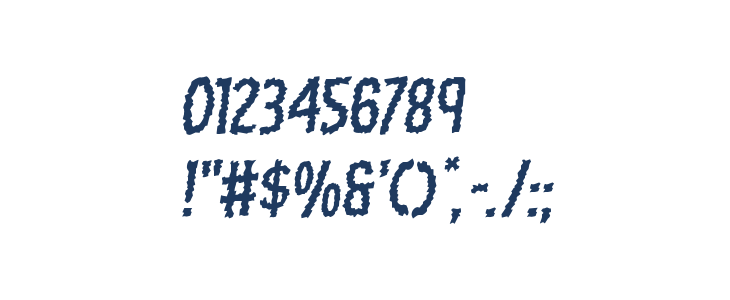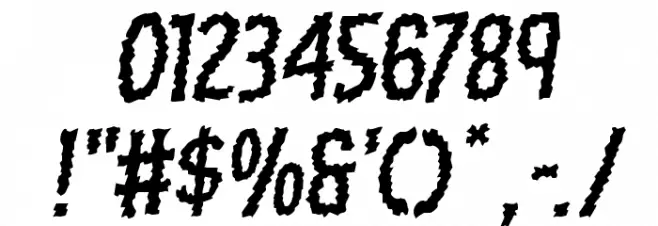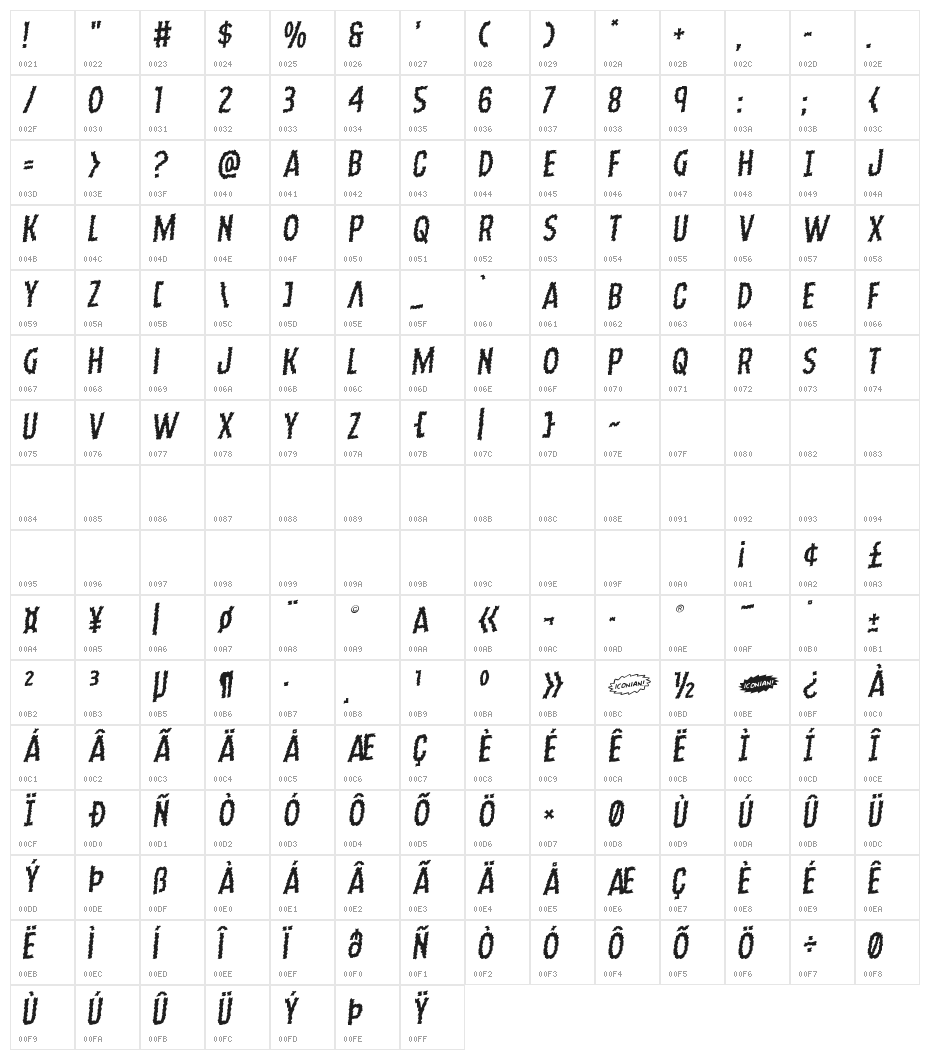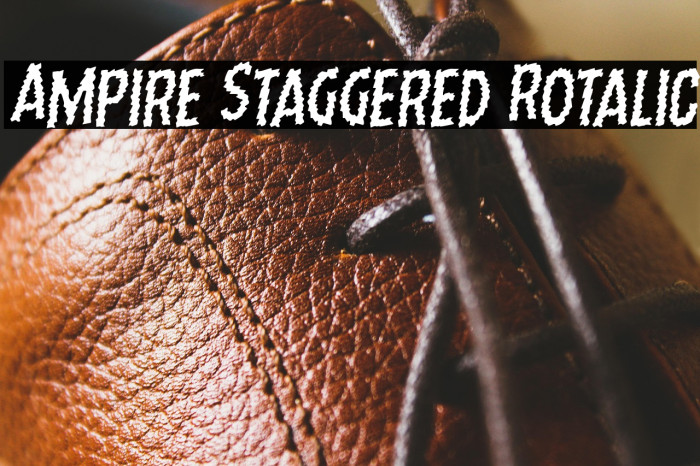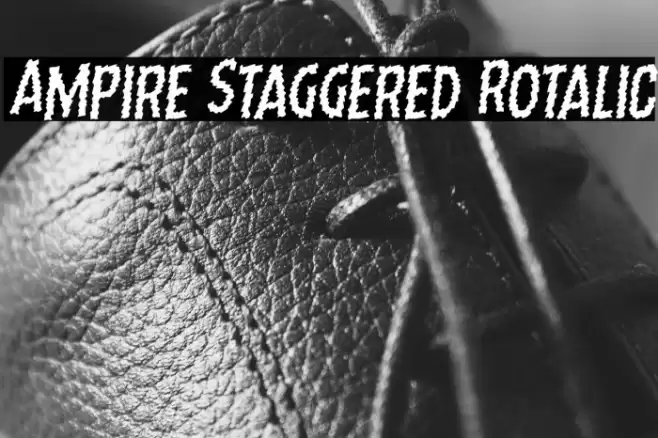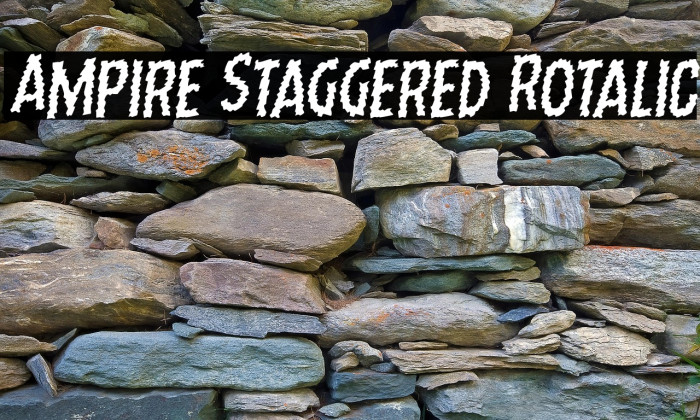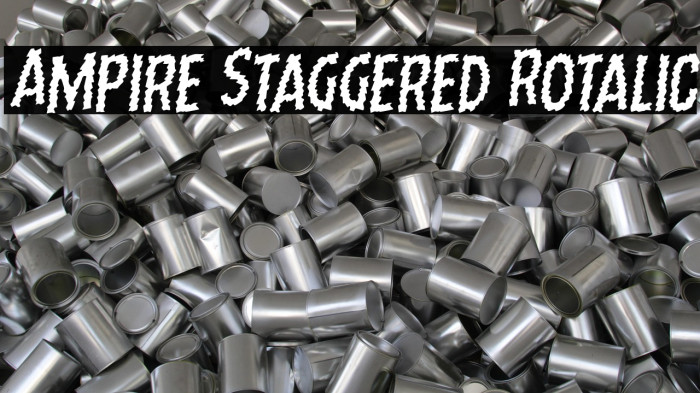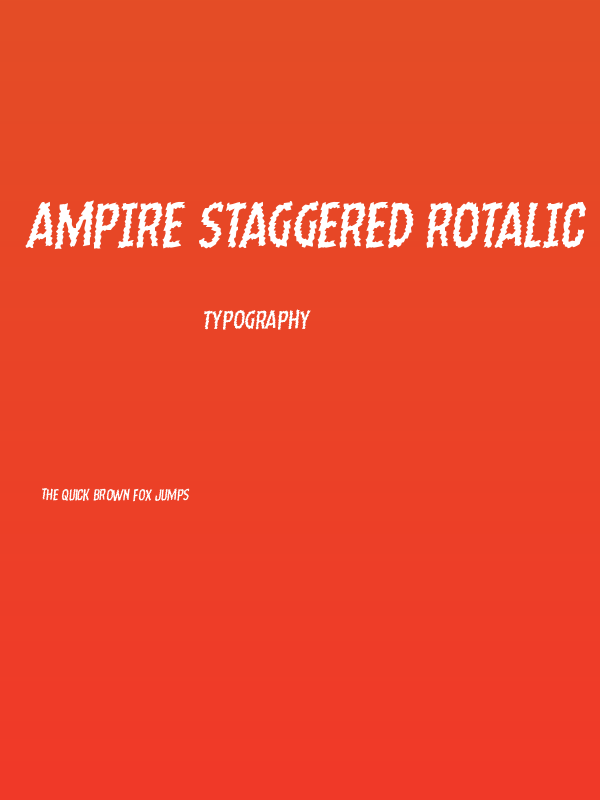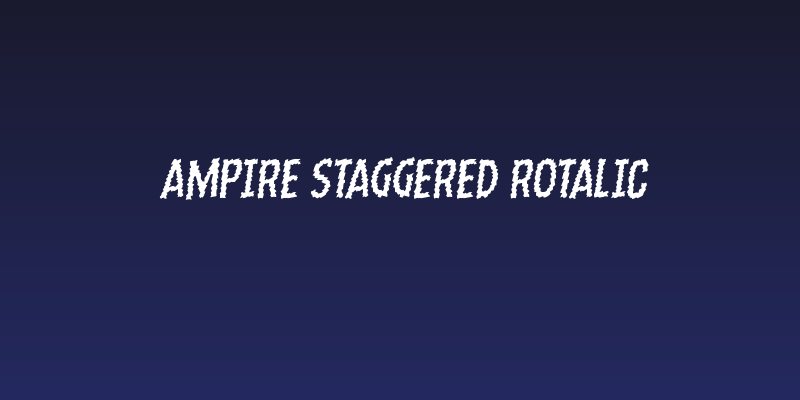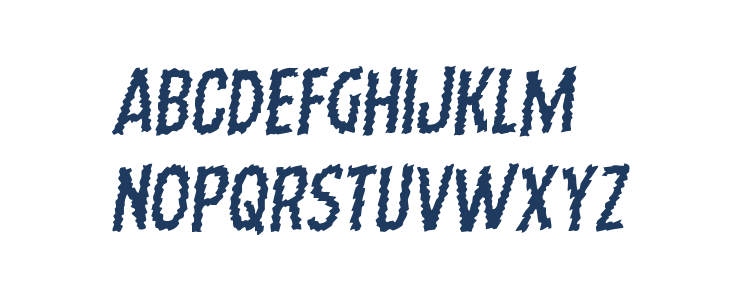
Ampire Staggered Rotalic Font
Ampire Staggered Rotalic Description
This font features a dynamic, staggered appearance with a bold, jagged edge that gives it a sense of movement and energy. The characters are slightly slanted, enhancing the impression of speed and urgency. Each letter is crafted with a rough, textured outline that adds a gritty, rebellious feel. The uppercase and lowercase letters maintain a consistent style, while the numerals and special characters complement the overall aesthetic. This font is ideal for projects that require a bold statement or an edgy, unconventional look.
AMPIRE-STAGGERED-ROTALIC UPPERCASE
AMPIRE-STAGGERED-ROTALIC LOWERCASE
AMPIRE-STAGGERED-ROTALIC OTHER CHARS
| Overall Style | Modern, Edgy |
| Proposed Projects | Ideal for music album covers, event posters, edgy branding, or any project needing a bold, dynamic impact. |